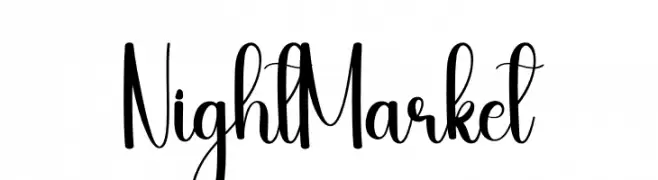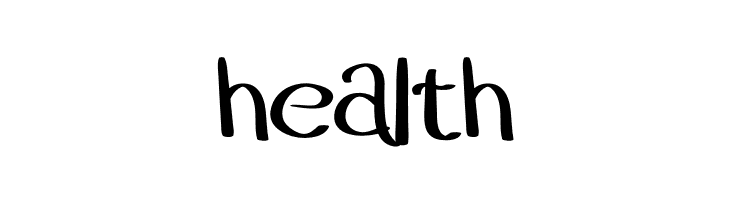
A playful and artistic script font with a handwritten style.
A playful, bold handwritten font with a casual and friendly style.
A bold, jagged font with a horror-themed, distressed style.
A modern, outlined font with a three-dimensional effect.
A playful, rounded font with a casual and informal style.
A bold, distressed font with jagged edges and a grunge aesthetic.
A bold, jagged font with a distressed, energetic style.
A bold, brush-style font with dynamic strokes and artistic flair.
A playful, handwritten script font with bold, energetic characters.
A decorative font with celestial star and moon motifs.